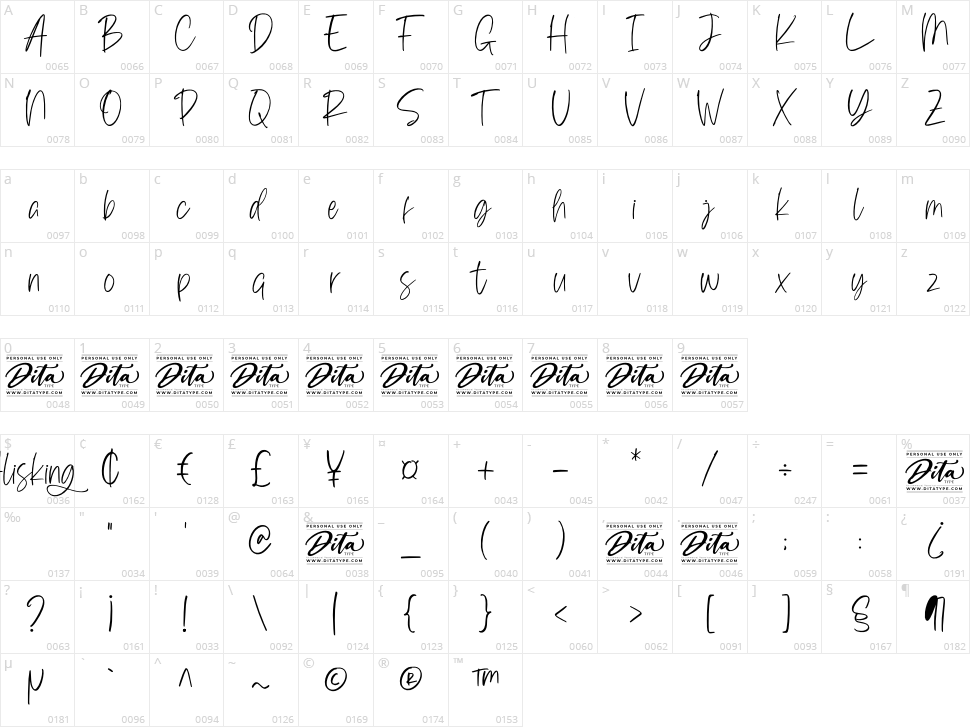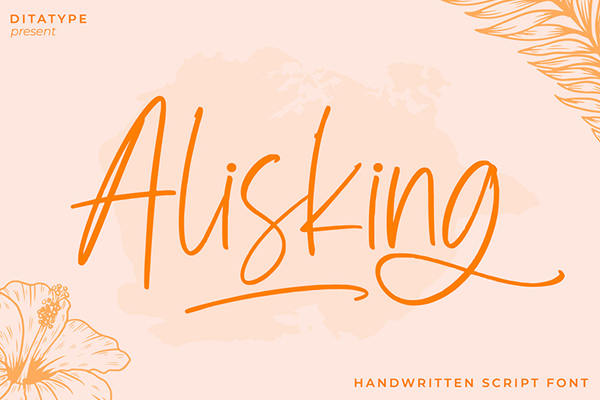
Alisking
Alisking is a classy handwritten font. Made for any professional project branding. It is the best for logosbranding and quotes. Every letter has a unique and beautiful touch.